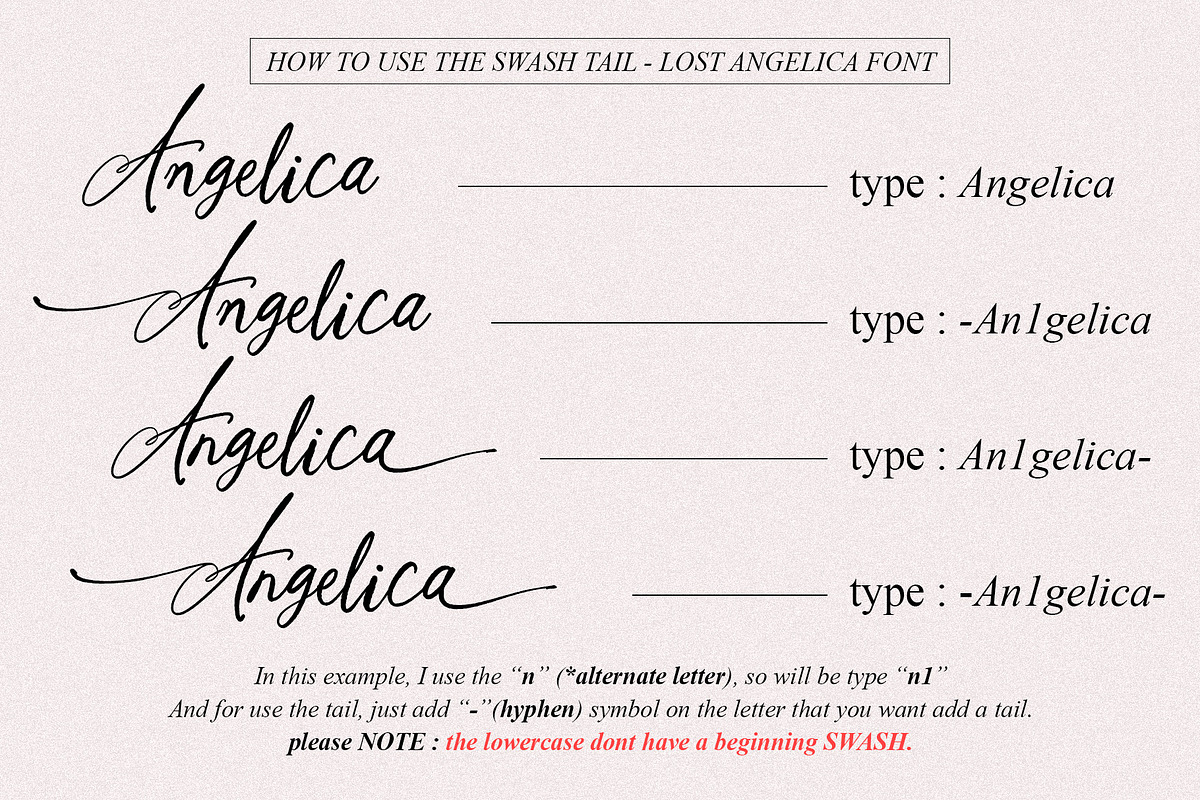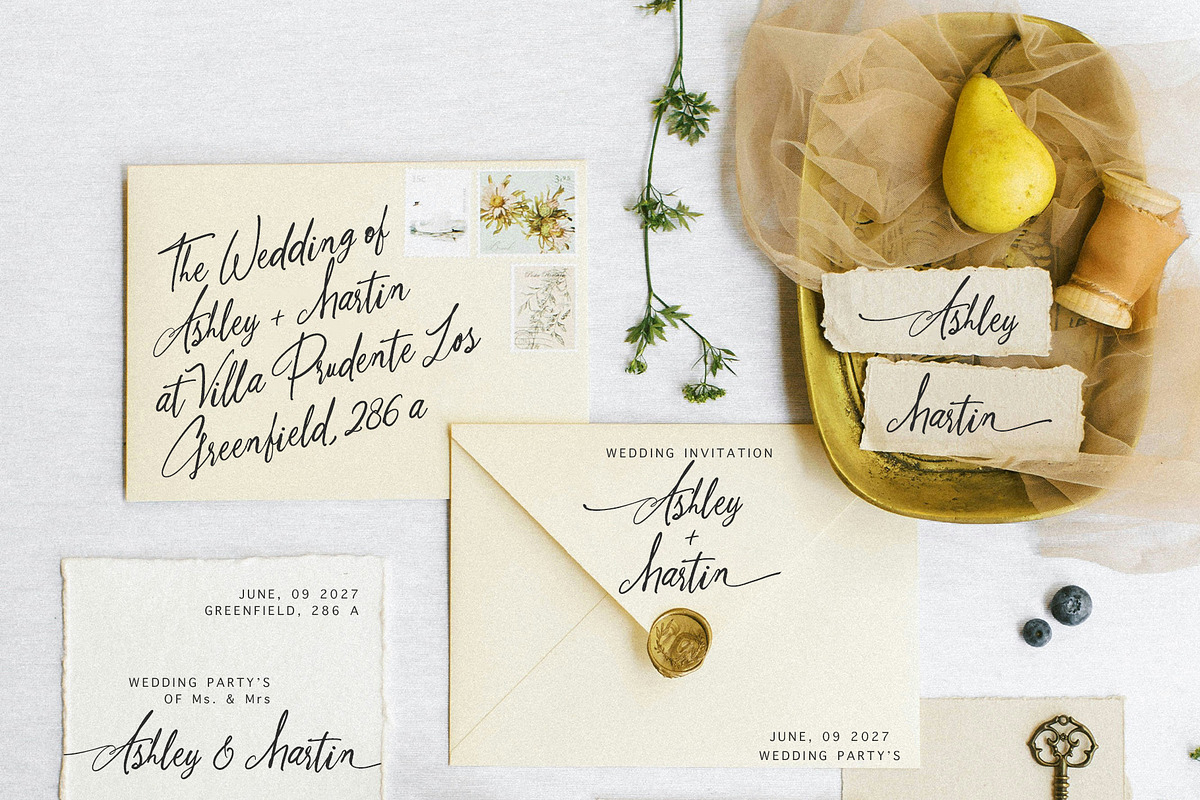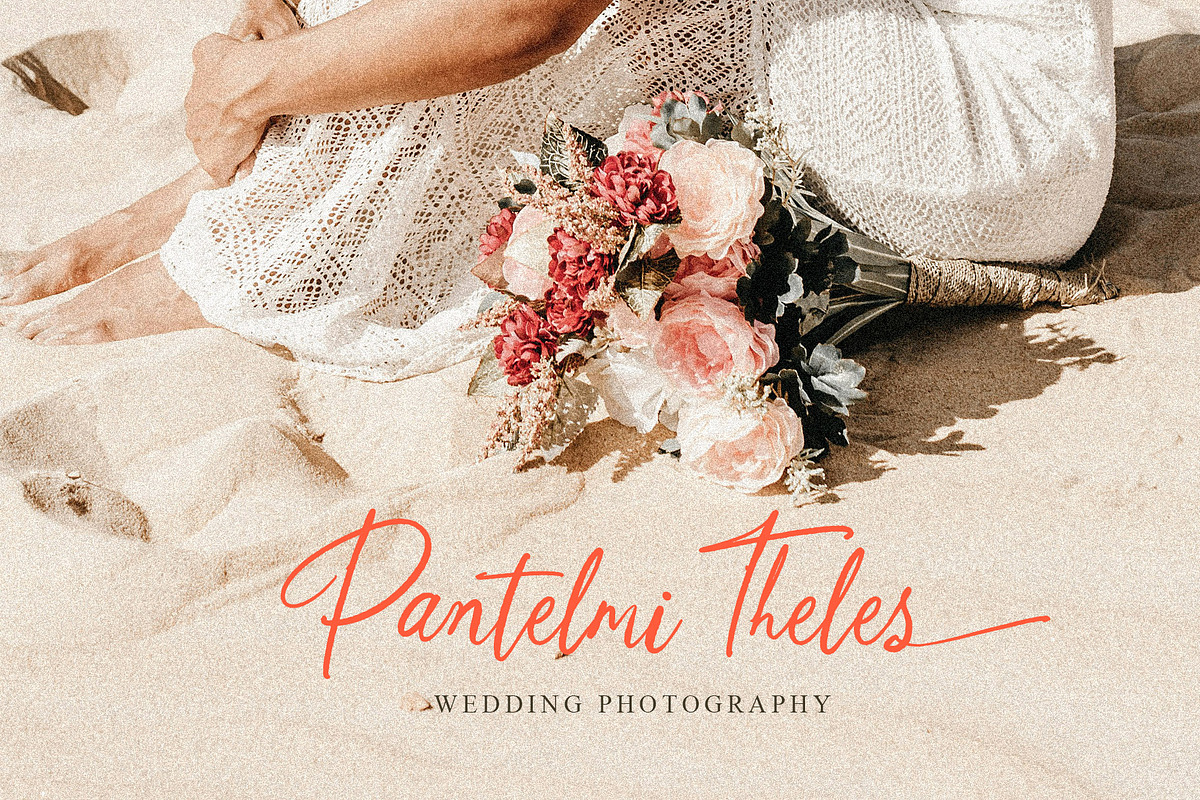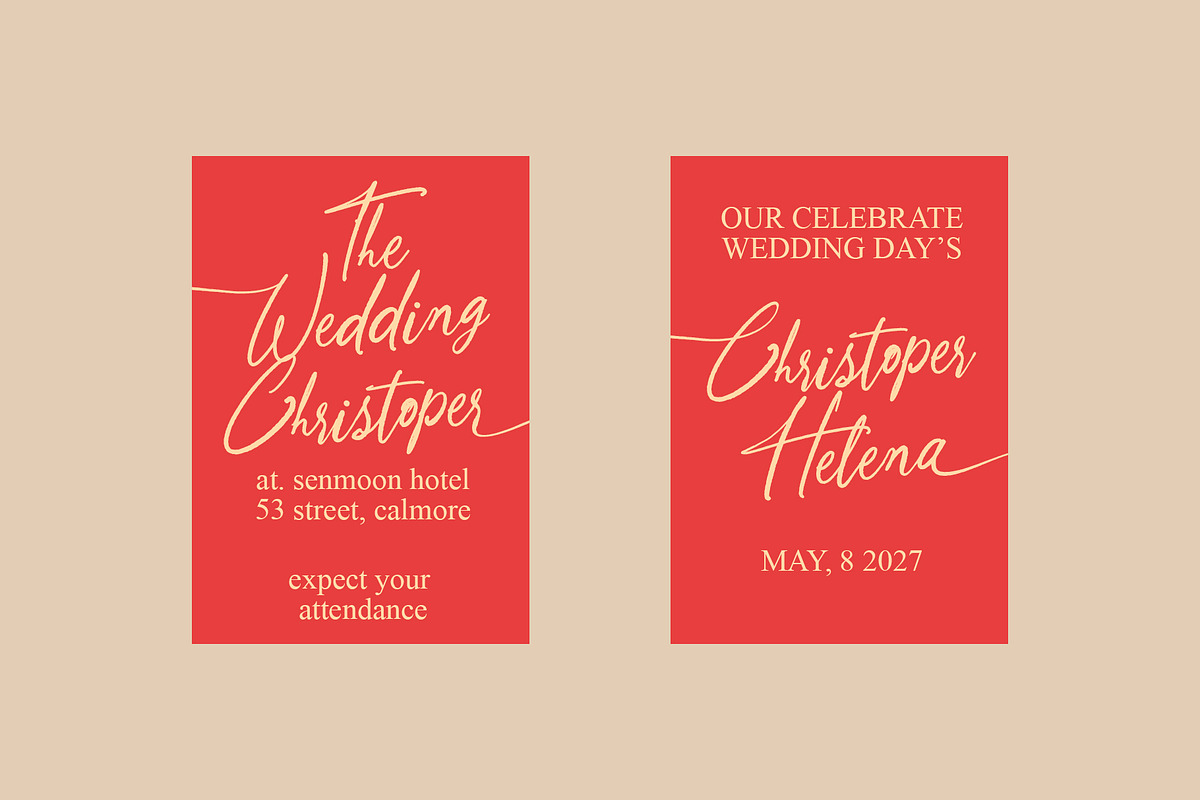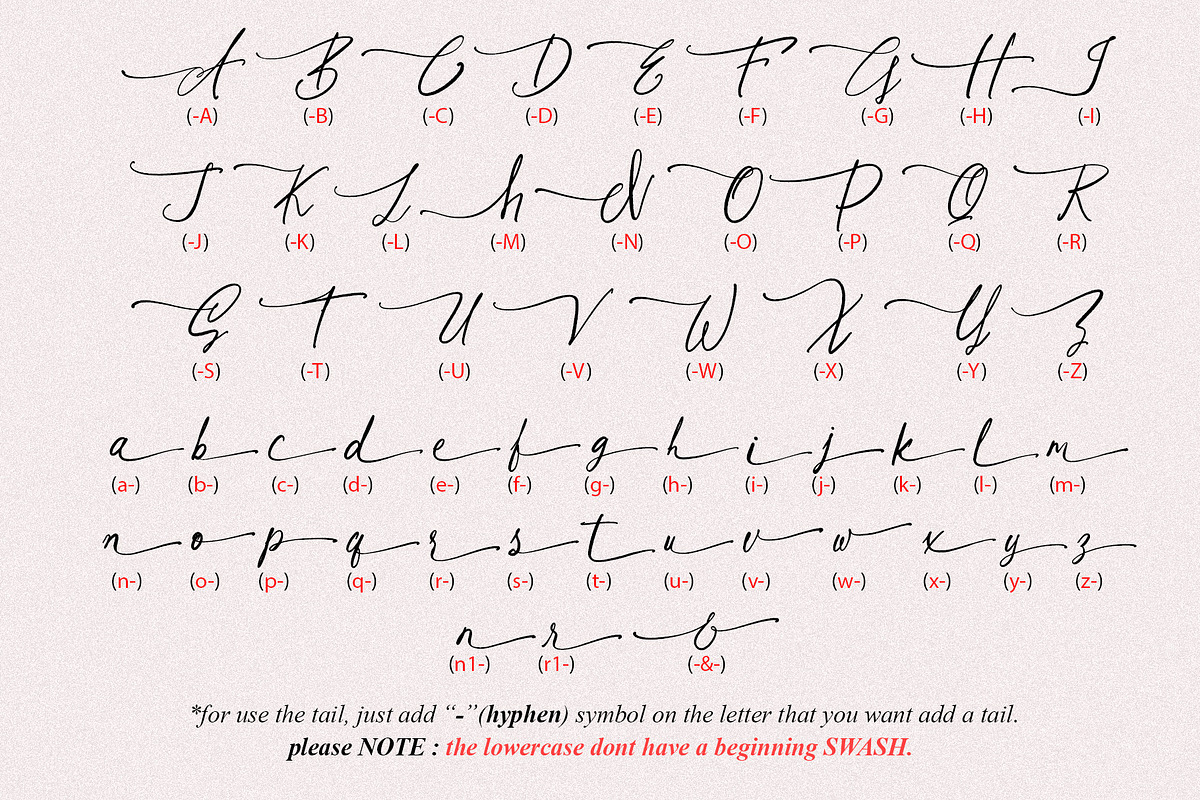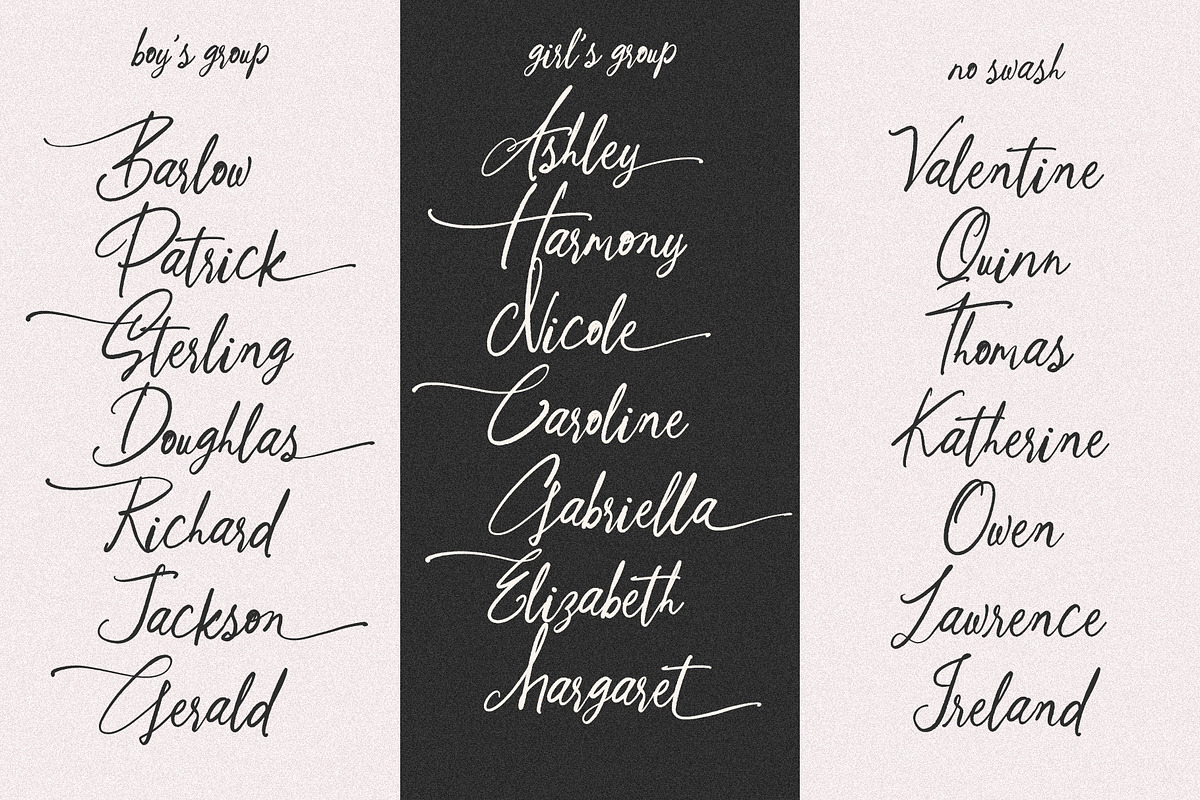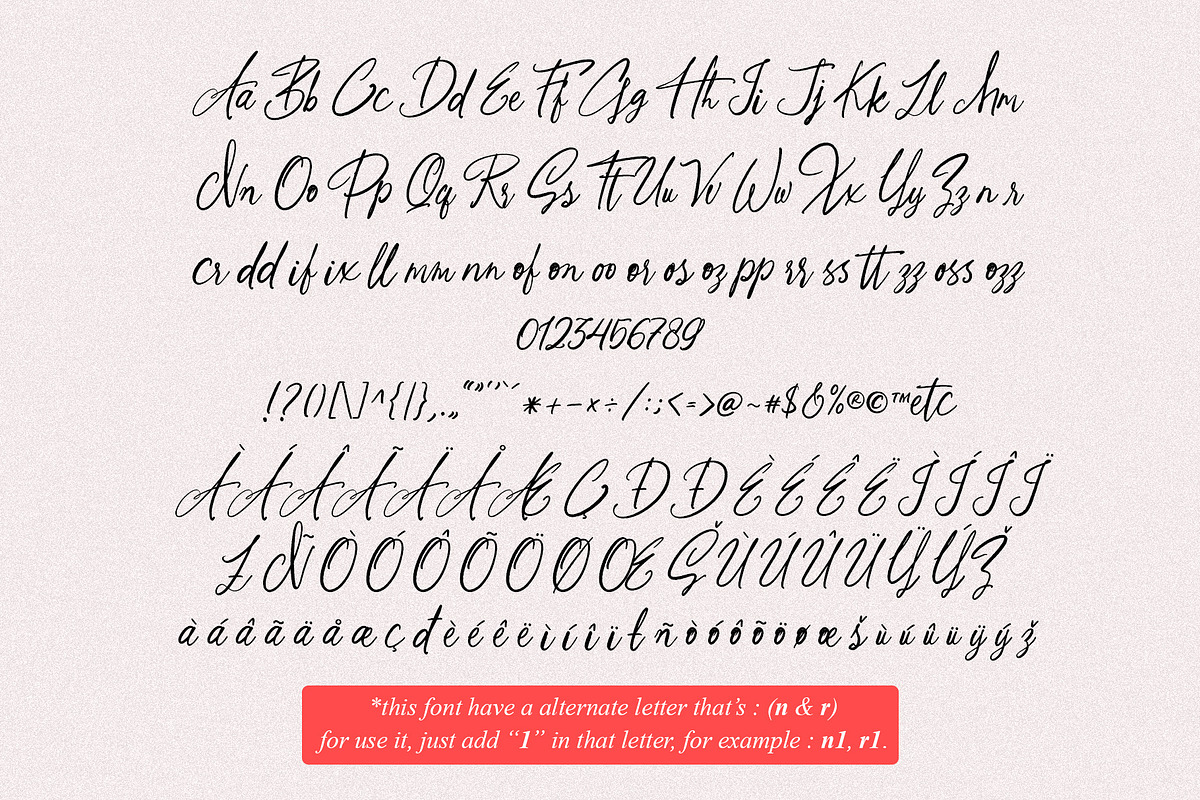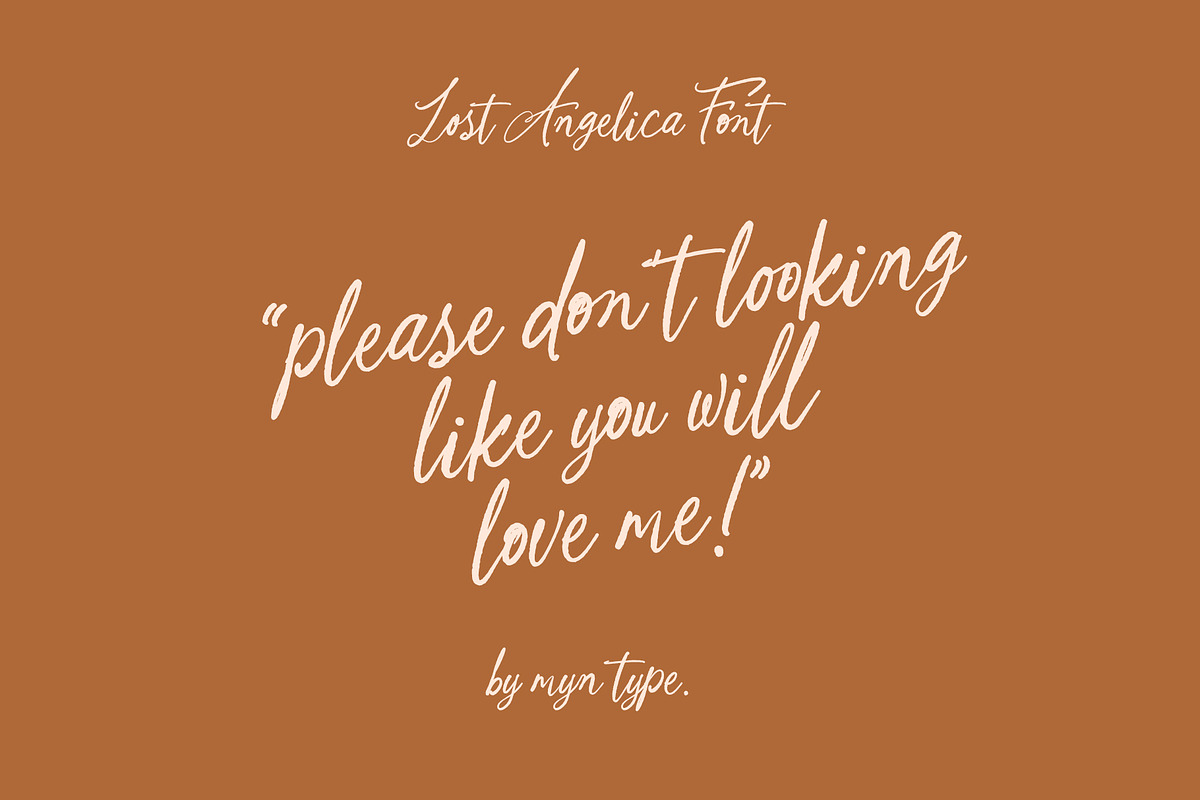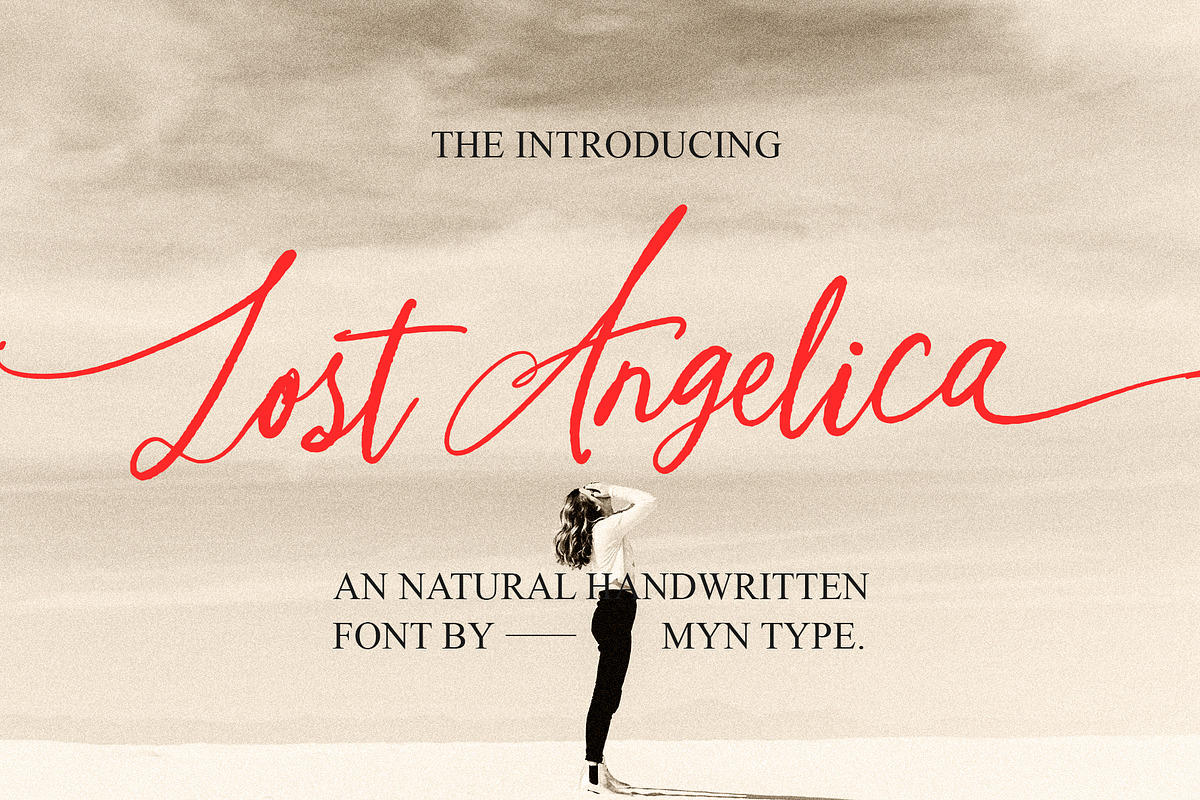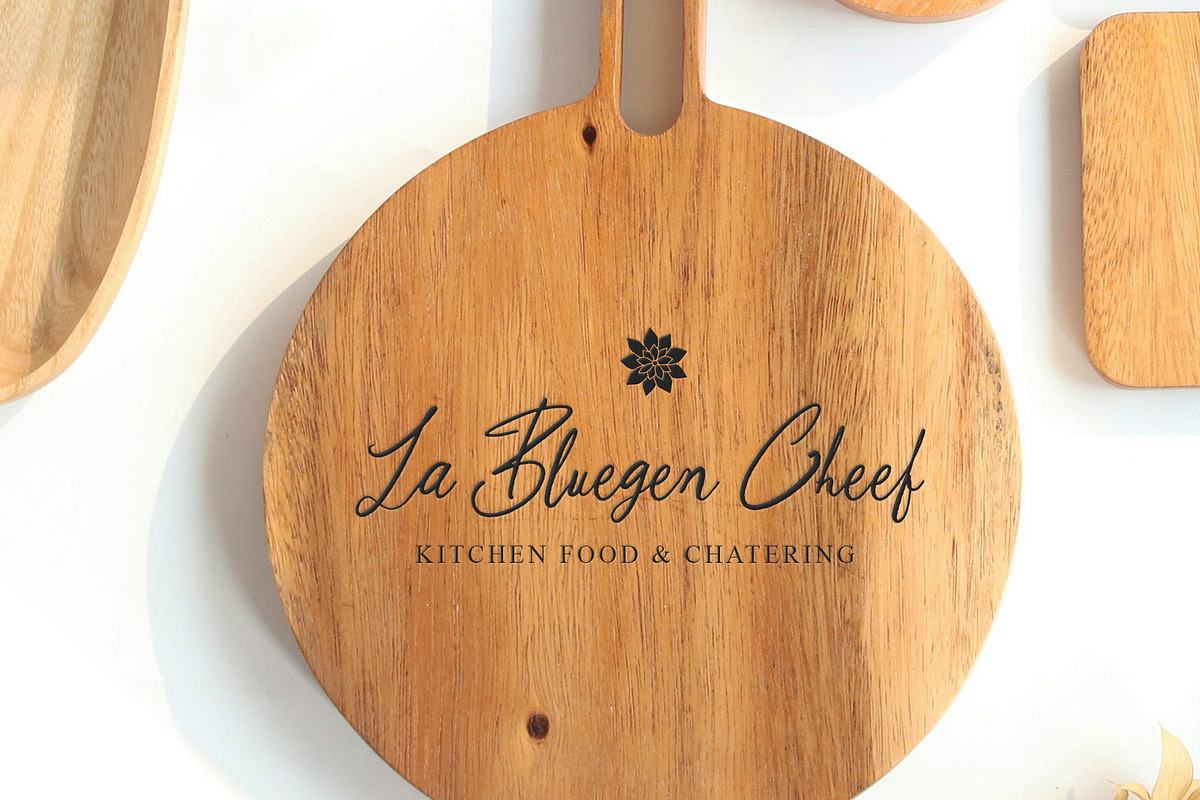
Lost Angelica - Pretty Handwritten
Meet the Lost Angelica Font ✨
An font made with a natural hand and textured touch so it looks natural, classic, attractive, and unique, accompanied by an elegant stylish swash tail make it stands out for your any design projects.
This font perfect for : wedding design, invitation design, display product design, apparel design, display product design, logo design, calligraphy logo, branding design, social media design, header design, title book design, and many more. Whether you want a modern, natural look or a classic, romantic feel, this font adapts easily to your vision.
FOR USE THE SWASH TAIL : you can see on the preview image page 13.